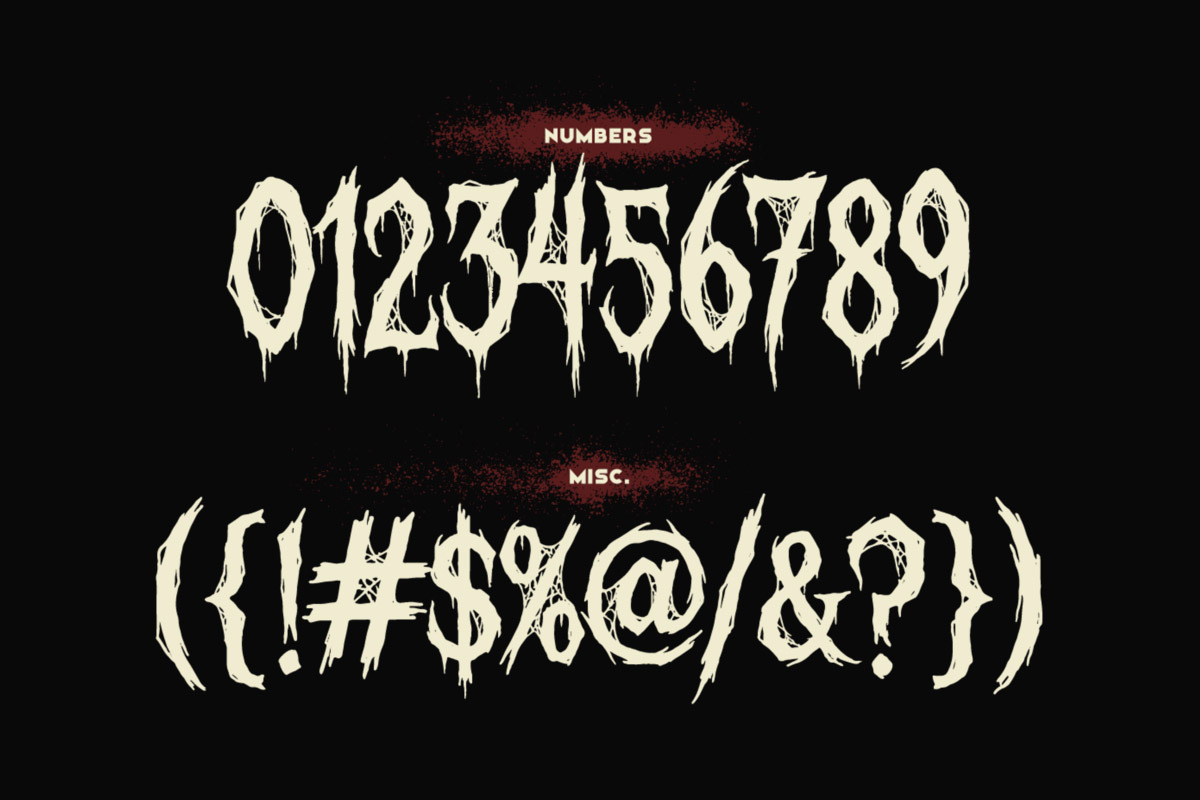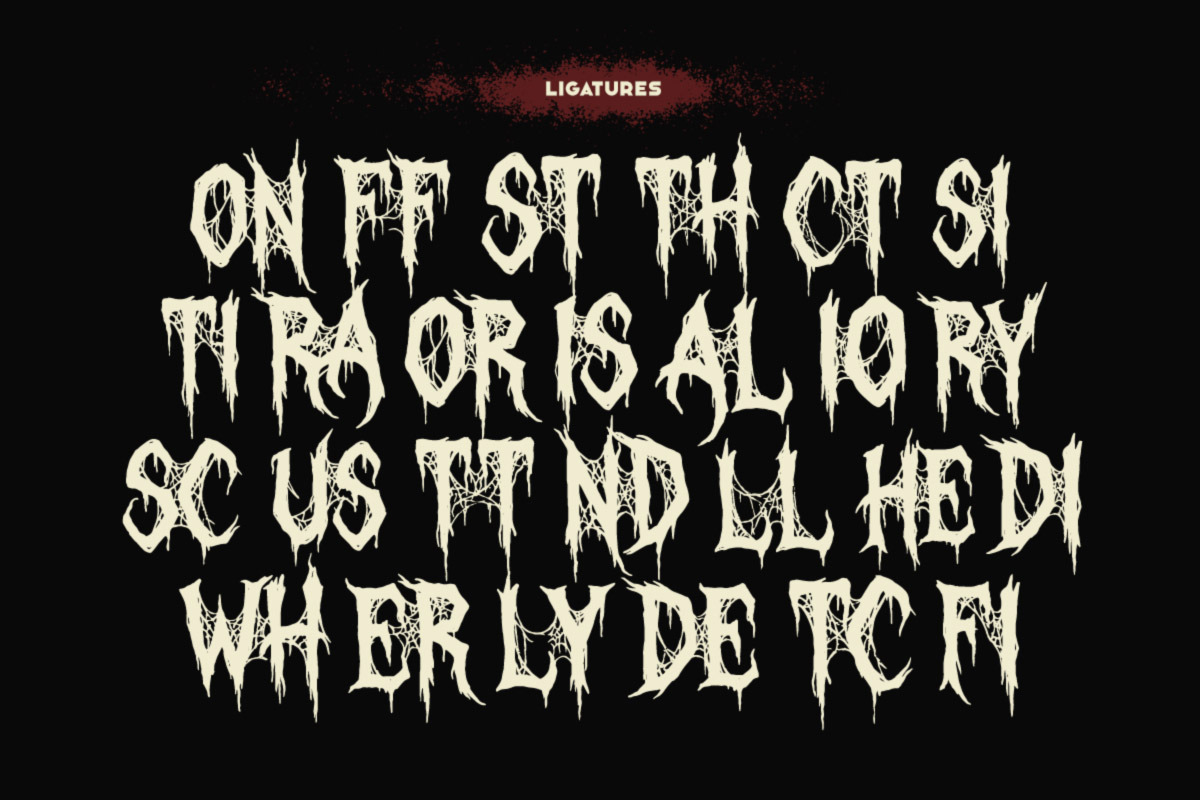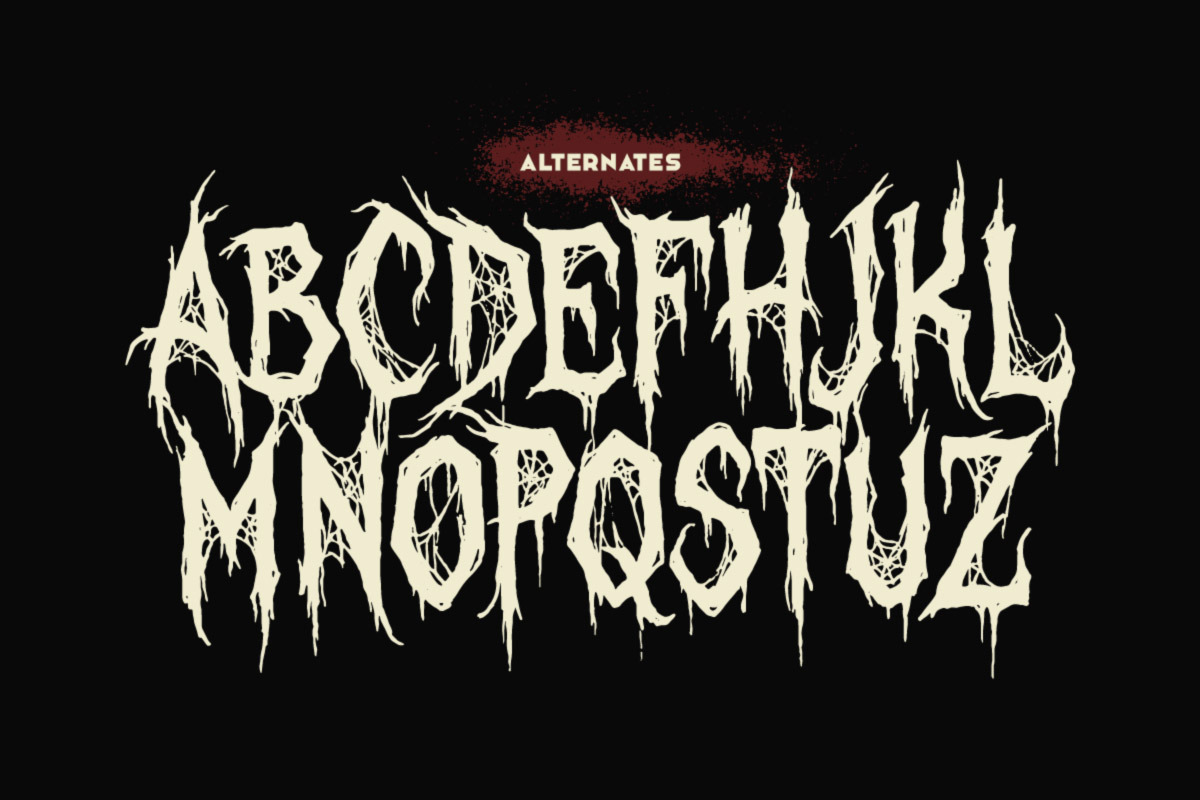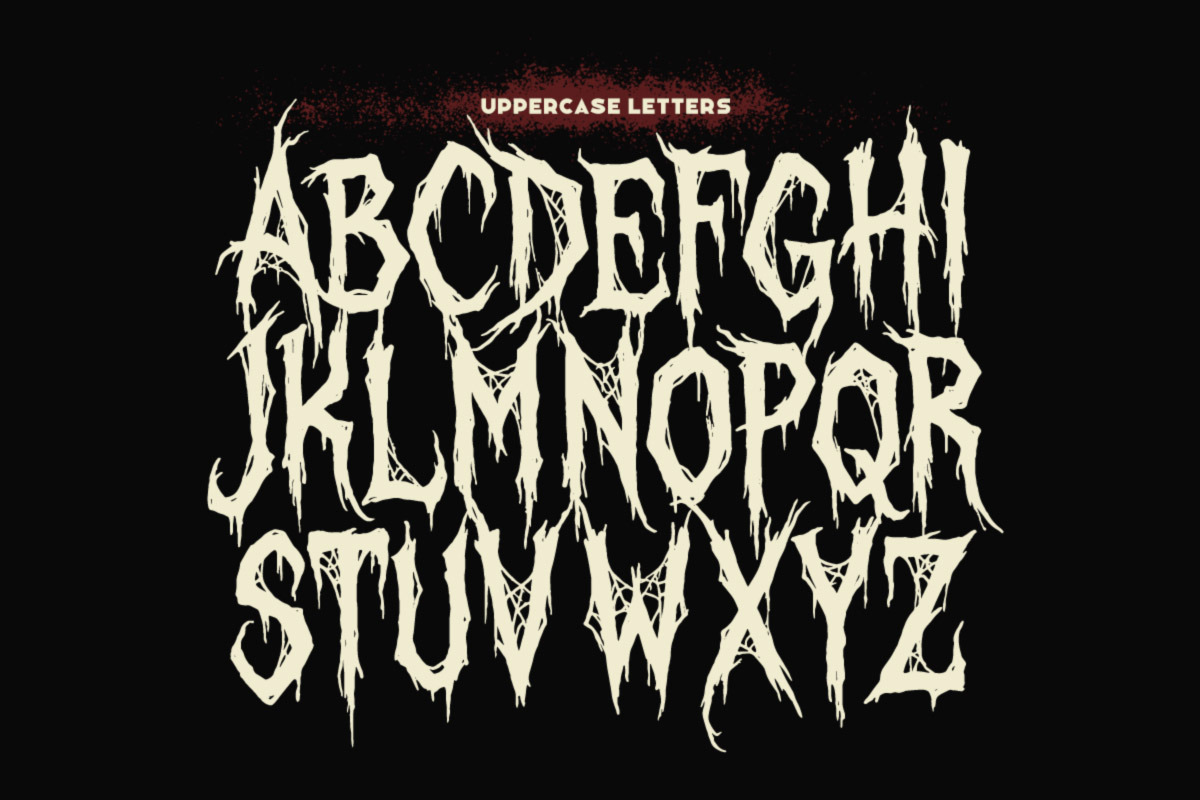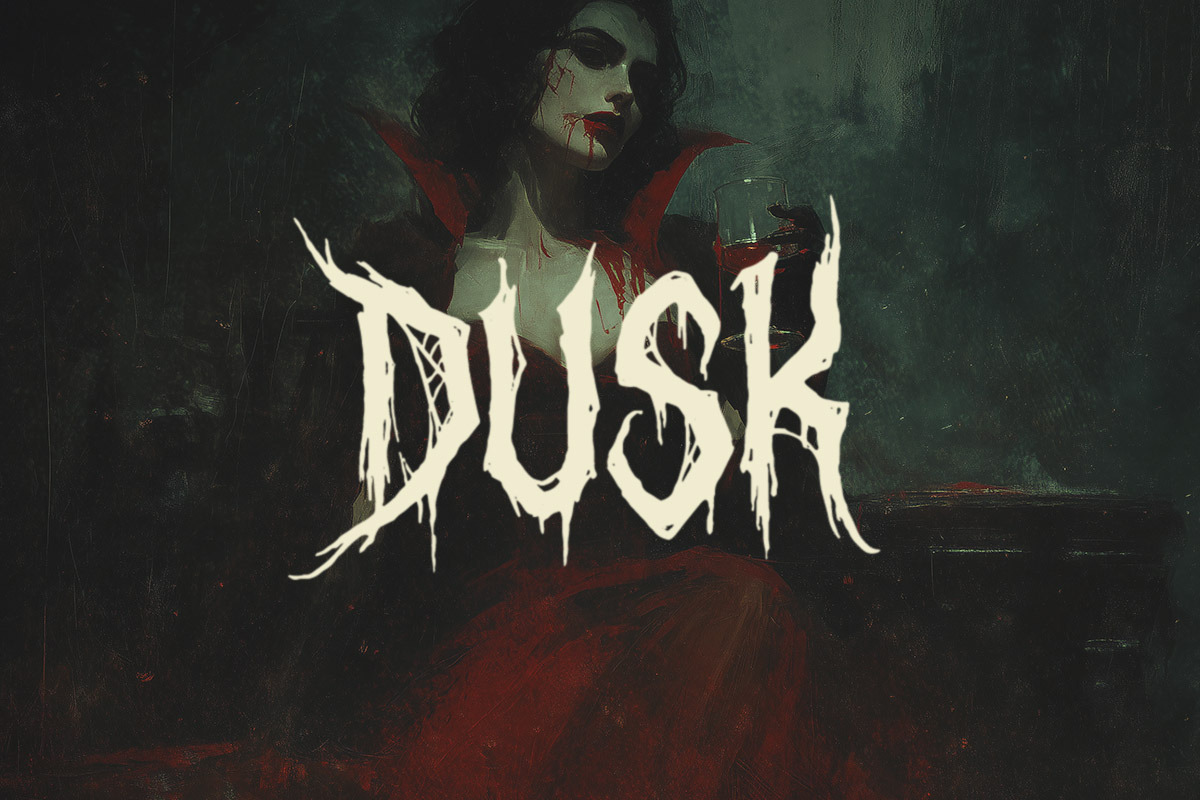
Dusk Typeface
Dusk is a raw horror display font with jagged, dripping letterforms and a violent hand-drawn feel. Packed with alternates and ligatures, it’s perfect for horror movies, metal logos, dark book covers, game titles, posters, and underground artwork.